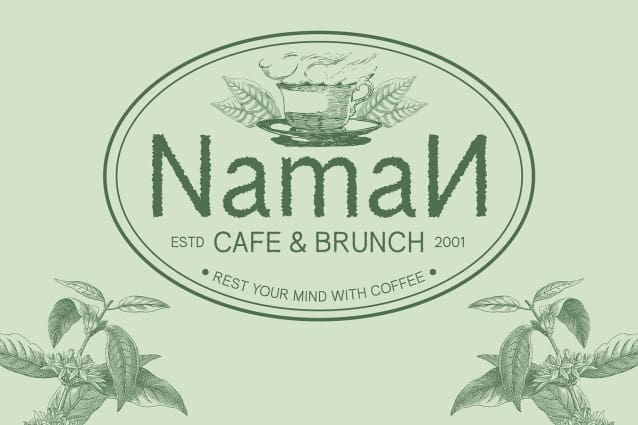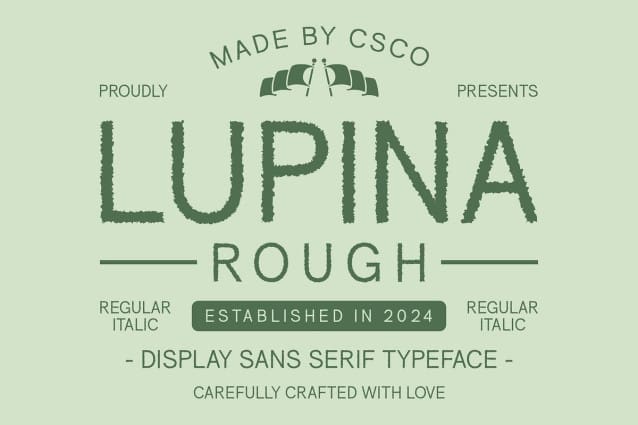
Lupina Rough Font
Lupina Rough Font is a modern sans-serif font that seamlessly integrates a clean, grotesque design with a distinctive rough effect. The grotesque style provides a straightforward, functional appearance with excellent readability, while the rough effect introduces a rugged, uneven texture that adds a dynamic and organic touch. This combination results in a font that marries contemporary aesthetics with an edgy, artistic flair.
Perfect for Creative and Bold Design Projects With its blend of modern simplicity and textured boldness, Lupina Rough is ideal for a variety of designs that require a strong and memorable presence. The font’s clean lines and functional design make it suitable for creative branding, impactful posters, and bold promotional materials. Its rugged texture adds an element of uniqueness and character, ensuring that your designs stand out with a distinctive and engaging look.
Versatile Design for Contemporary and Edgy Applications Lupina Rough offers a versatile design that combines the clarity of a modern sans-serif with the artistic edge of a rough texture. Whether you’re working on branding, event graphics, or promotional materials, this font provides a modern yet daring aesthetic that captures attention and adds a touch of originality. Perfect for projects aiming to convey strong character and contemporary style, Lupina Rough delivers a fresh and impactful visual statement.